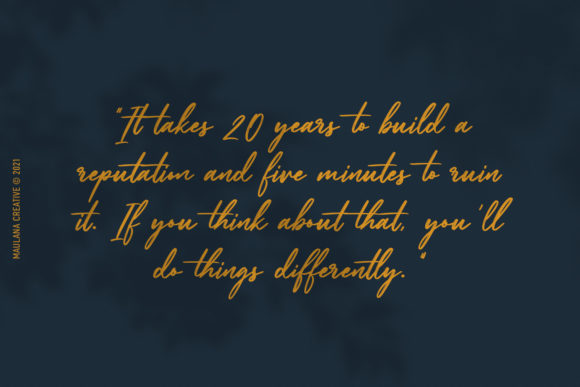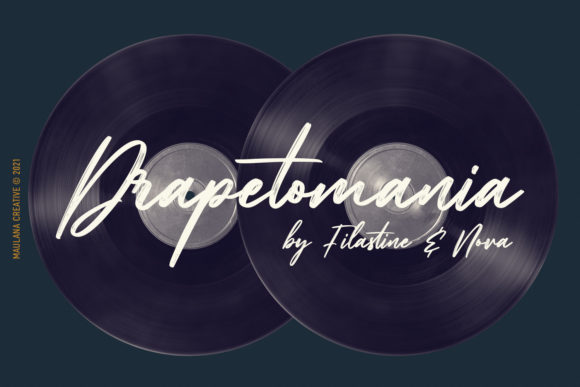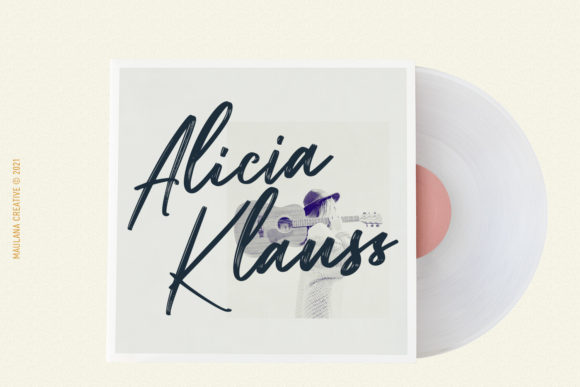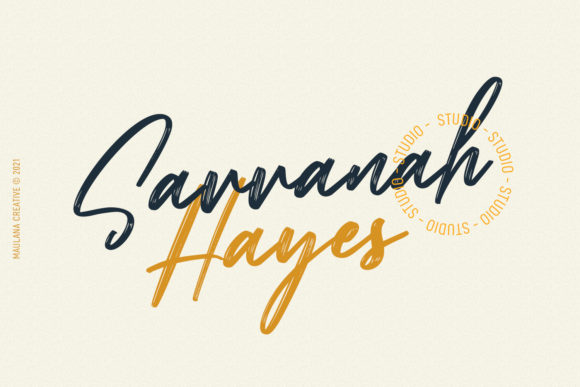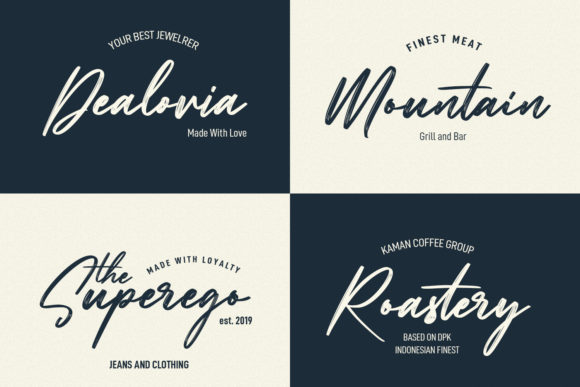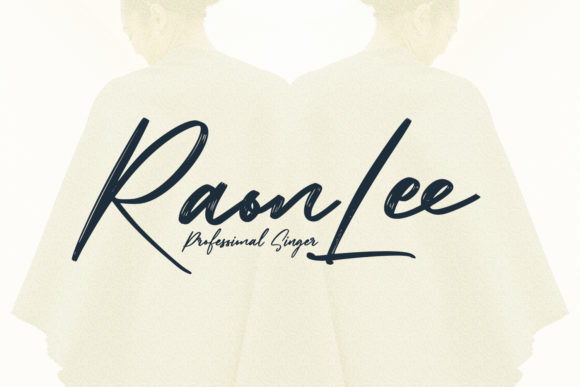
Introducing Bootleg Hayes Font: The Perfect Addition to Your Design Arsenal
Are you tired of using the same old fonts in your designs? Look no further than Bootleg Hayes, a simple and flowing handwritten font that’s sure to add a fun and friendly touch to any project. With its adaptable nature, Bootleg Hayes is the perfect choice for designers and crafters looking to elevate their work and make it stand out from the crowd.
The Characteristics of Bootleg Hayes
Bootleg Hayes is a beautifully crafted handwritten font that’s characterized by its smooth, flowing lines and simple elegance. The font’s unique charm lies in its effortless, carefree vibe, which makes it perfect for a wide range of design applications. Whether you’re working on a logo, a poster, a website, or a social media graphic, Bootleg Hayes is sure to bring a touch of personality and whimsy to your project.
Why Choose Bootleg Hayes?
So, what sets Bootleg Hayes apart from other fonts on the market? Here are just a few reasons why designers and crafters are falling in love with this amazing font:
- Versatility: Bootleg Hayes is an incredibly versatile font that can be used in a variety of design contexts. Whether you’re working on a formal or informal project, this font is sure to adapt and look great.
- Unique charm: Bootleg Hayes has a unique, handcrafted charm that’s hard to find in digital fonts. The font’s imperfections and quirks add to its character, making it perfect for designers who want to add a personal touch to their work.
- Fun and friendly: Bootleg Hayes is the perfect font for designers who want to add a fun and friendly touch to their projects. The font’s playful vibe makes it ideal for use in children’s designs, social media graphics, and other applications where a lighthearted tone is desired.
Design Ideas to Showcase Bootleg Hayes
Bootleg Hayes is an incredibly versatile font that can be used in a wide range of design applications. Here are just a few ideas to get you started:
- Logos and branding: Use Bootleg Hayes to create a unique and memorable logo for your business or brand. The font’s simple, elegant lines make it perfect for use in wordmarks, letterforms, and other types of logos.
- Posters and flyers: Add a touch of personality to your posters and flyers with Bootleg Hayes. The font’s bold, playful vibe makes it perfect for use in headings, titles, and other types of display text.
- Web design: Use Bootleg Hayes to add a touch of whimsy to your website’s design. The font’s clean, simple lines make it perfect for use in body copy, headings, and other types of text.
- Social media graphics: Bootleg Hayes is the perfect font for social media graphics, including Facebook posts, Instagram stories, and Twitter headers. The font’s fun, friendly vibe makes it ideal for use in a range of social media applications.
Tips for Using Bootleg Hayes
Here are a few tips to help you get the most out of Bootleg Hayes:
- Experiment with font sizes: Bootleg Hayes looks great in a range of font sizes, from small and delicate to large and bold. Experiment with different font sizes to find the one that works best for your project.
- Pair with other fonts: Bootleg Hayes pairs well with a range of other fonts, including serif and sans-serif fonts. Experiment with different font combinations to find the one that works best for your project.
- Use in combination with images: Bootleg Hayes looks great when used in combination with images, including photographs, illustrations, and graphics. Experiment with different image combinations to find the one that works best for your project.
Bootleg Hayes is a simple and flowing handwritten font that’s sure to add a fun and friendly touch to any project. With its adaptable nature, unique charm, and ease of use, this font is perfect for designers and crafters looking to elevate their work and make it stand out from the crowd. Whether you’re working on a logo, a poster, a website, or a social media graphic, Bootleg Hayes is the perfect choice for adding a touch of personality and whimsy to your design.